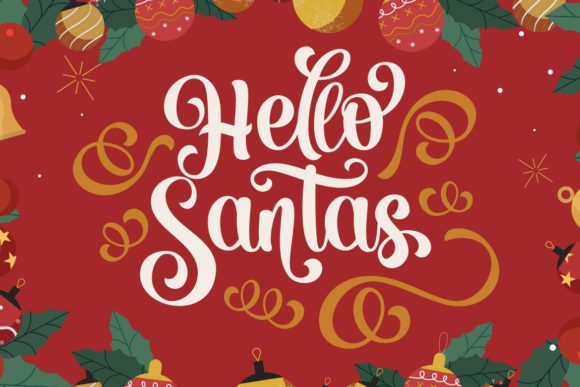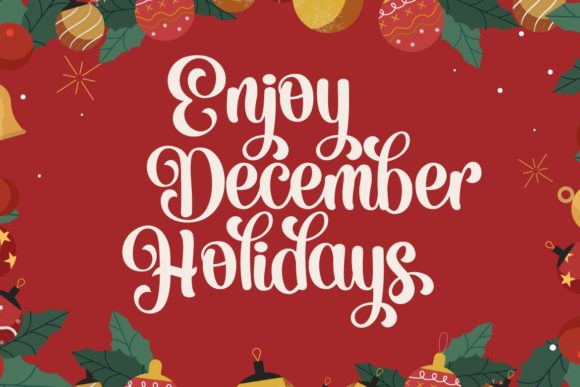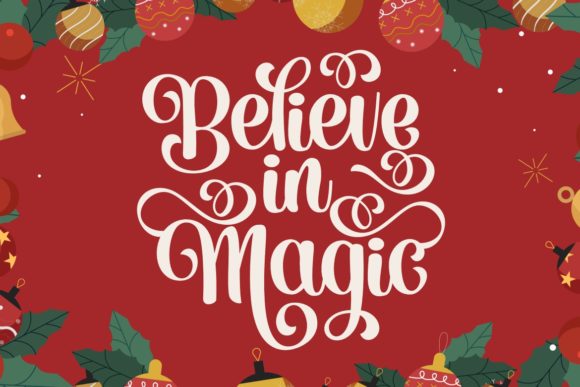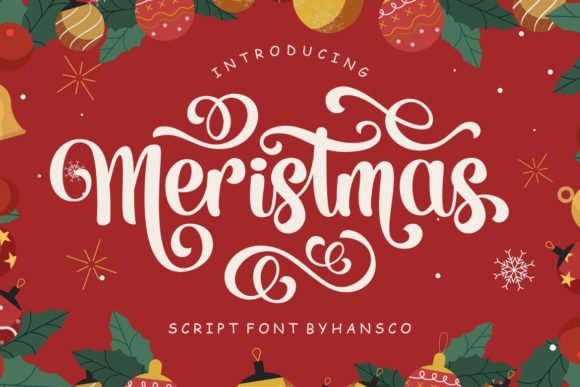
Introduction to Meristmas Font
Meristmas is a beautiful and sweet handwritten font.
It is fresh, clean, and elegant This font will look amazing in a great amount of projects, both formal and informal.
Key Features of Meristmas Font
Why Choose Meristmas Font?